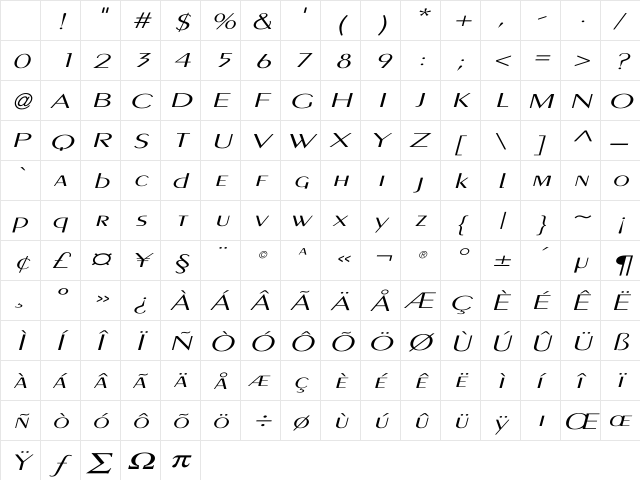
Complete PigNoseTyp Italic glyph index. Displaying only characters natively supported by PigNoseTyp Italic font.
PigNoseTyp is a composed and adaptable typeface that performs quietly and consistently across a wide range of design contexts. The slanted form adds forward momentum and visual energy.